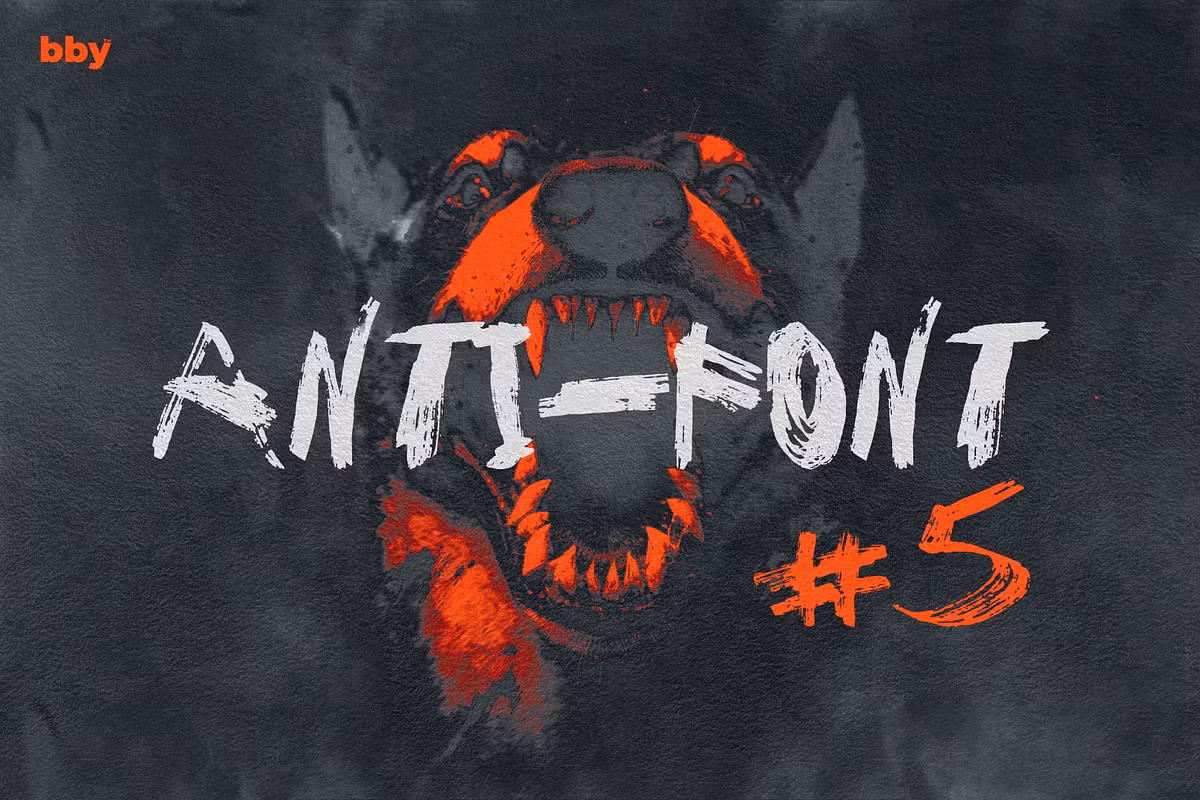
Edgy, unconventional, and full of attitude, Anti-Font Free Download is a bold and experimental typeface designed to challenge the norms of traditional typography. Perfect for graphic designers, digital artists, and creative projects that call for a rebellious, avant-garde aesthetic, this font pushes the boundaries of design with its unique, distorted letterforms.
With its rough edges and abstract shapes, Anti-Font stands out for its raw, deconstructed style, making it ideal for modern art projects, music posters, experimental branding, and anything that seeks to break free from the mainstream.